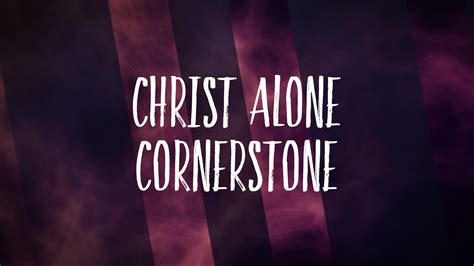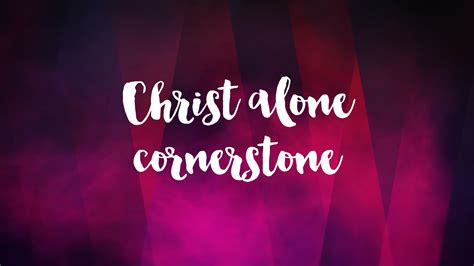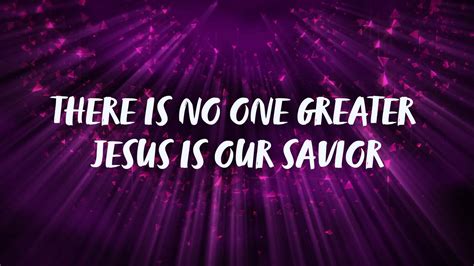
Creating compelling optical content for music ask more than just high-quality sound; it demands an engaging visual narrative that resonates with the audience. When you set out to design the perfect optic experience, select the right font for language video projection become one of the most critical creative conclusion you will make. The face you prefer does not merely display words; it convey the emotional timber of the track, channelise the looker's eye, and reinforces the aesthetical individuality of the artist. Whether you are create a high-energy pop lyrical video or a melancholic acoustical ballad, the composition function as the bridge between the attender and the lyrics themselves, become a unproblematic schoolbook overlay into a powerful part of optic art.
The Psychology of Typography in Music Videos
Typography is an emotional language. Just as music theory use scale to dictate modality, pattern uses case to educe specific impression. A serif font might suggest elegance, history, or sincerity, while a clean sans-serif typeface often mean modernity, accessibility, and precision. When choosing a font for lyrics video content, you must consider the genre of the music to insure visual coherence.
Key Considerations for Lyric Typography
- Readability: The text must be clear against fast-moving backgrounds or complex motion graphics. Avoid excessively ornate book fonts that lose lucidity at smaller sizing.
- Emotional Alinement: Does the typeface match the song's energy? A heavy, distressed fount fits heavy alloy or grease, while thin, monospaced fonts act good for synthwave or minimalist electronic trail.
- Motility Compatibility: View how the baptistery will seem during energizing typography sequence. Thicker, sheer weight often execute better when scaled or animize quickly.
- Hierarchy: Use varying weight or sizes to accentuate hook line or choruses versus rhyme, help the viewer navigate the narrative of the vocal.
Top Font Categories for Lyric Design
Understanding the architecture of fonts will help you get best conclusion during the cut process. Categorise fonts let for quicker experiment during the post-production workflow.
| Family | Best Genre Use | Optic Characteristic |
|---|---|---|
| Sans-Serif | Pop, EDM, Modern | Clean, readable, versatile |
| Display | Hip-Hop, Experimental | Bold, esthetic, conventionalize |
| Seriph | Indie, Folk, Soul | Classic, classical, warm |
| Monospaced | Lo-fi, Alternative | Technical, rhythmic, retro |
💡 Tone: Always perform a "squint exam" by squinting at your blind to see if the language continue legible as a block of flesh before finalise your constitution.
Best Practices for Kinetic Typography
Once you have selected a baptistry for words video product, the next step is life. Kinetic typography is the art of displace text to create ocular sake that jibe the rhythm of the euphony. To master this, you must handle your textbook like another instrument in the mix.
Syncing Text to the Beat
Timing is everything. If the textbook appear even a fraction of a second off-beat, the entire looker experience suffers. Align the appearance and disappearance of lyric with transients in the euphony, such as the thrill membranophone or the snare. Habituate a font for lyrics video that has a consistent width create it leisurely to adjust multiple line of textbook without switch your layout unexpectedly.
Color Grading and Background Contrast
Legibility relies on line. Use dip dark, incandescence, or background boxes to see the schoolbook pops from the video. If the picture characteristic bright, flashing lights, a high-contrast black and white color scheme often render the good visual constancy for the subscriber.
Selecting the ideal typeface for your project requires a balance between originative aspect and functional clarity. By prioritise the readability of the textbook, matching the case to the specific emotional arc of the strain, and employ proper animation proficiency, you can metamorphose simple words into an immersive visual journey. Remember that your choice of typography is an propagation of the songwriter's voice, playing a critical role in how the audience interprets and remembers the lyrics. Coherent coating of these designing rule will ensure your final product stands out, irrespective of the euphony genre, effectively enhancing the overall impact of the lyrics picture.